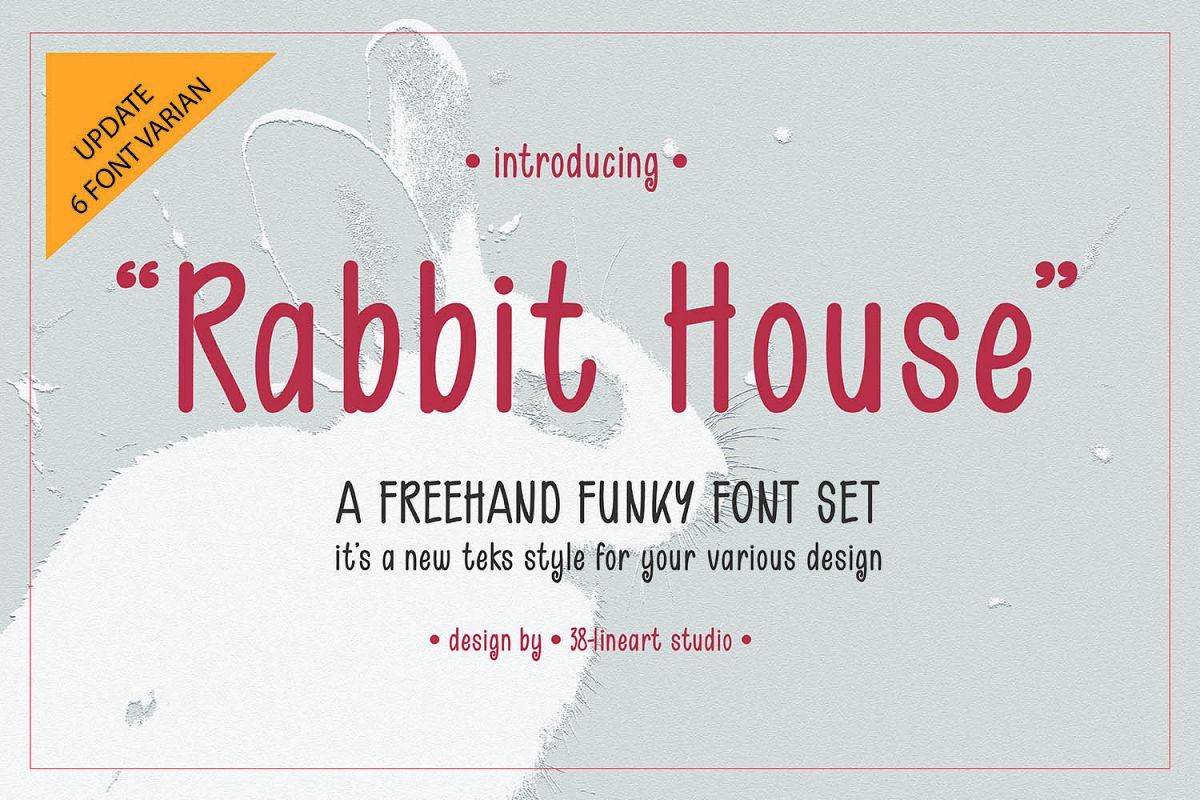
Rabbit House Funky Font Set
Rabit House Slant
Rabit House Shadow slant
RabitHouse Outline slant
RabitHouseshadow
RabitHouse Outline
Rabit House
Introducing Rabbit House Font.
This is a freehand style  font, its look
strong, simple and cute, so you can use it for your variety style. Its a funky
style that and perfect option to use for designs of hoardings and banners to be
used for parties and event.
So...  “ Rabbit House " it is.
Representatife for fun, simple, cute, simple, ellegan and natural touch. This
font is extensively edited for super-smooth lines and curves, so it'll cut
easyly your Cricut or Silhouette machine. Though it's also super cute for print
projects, logos, branding, anything else you want to use it for! It has a funky
mix of letter sizes and heights, and it'll still look great.